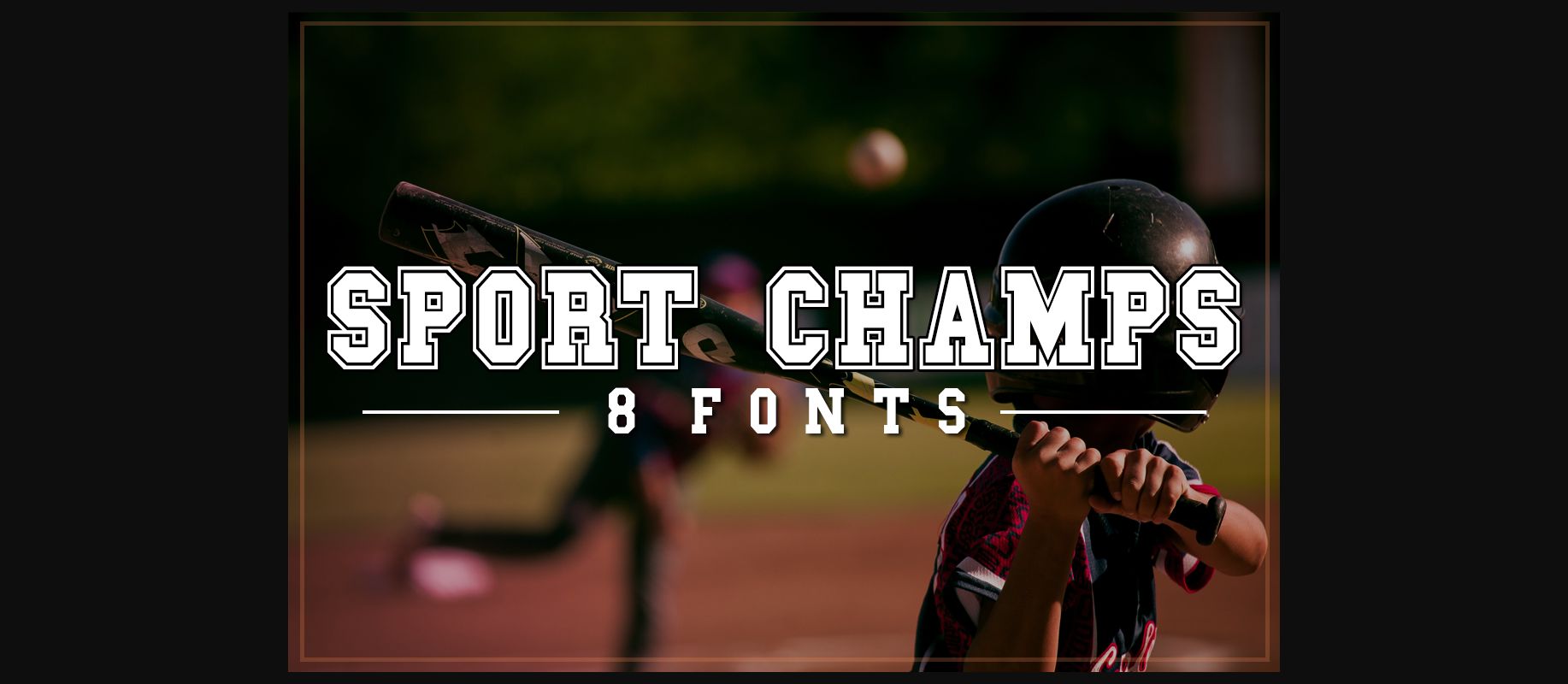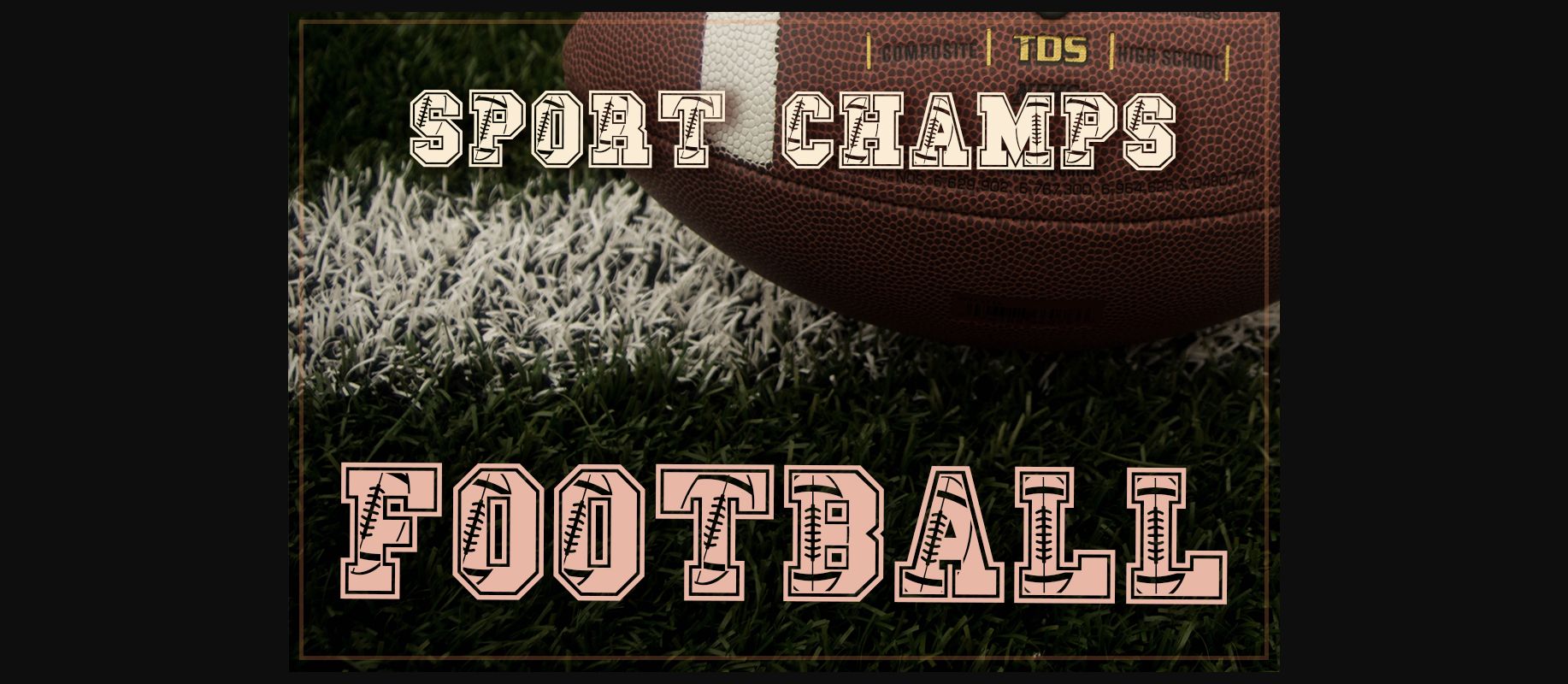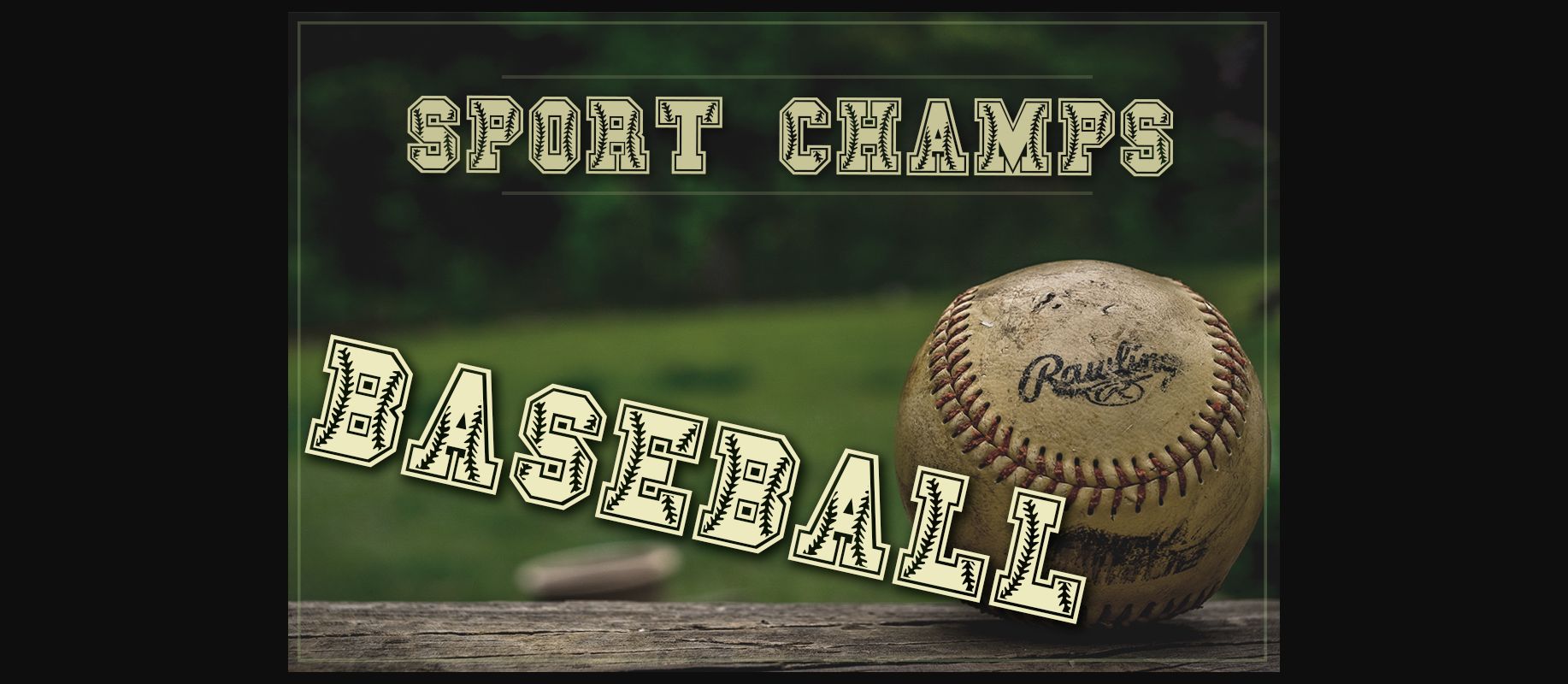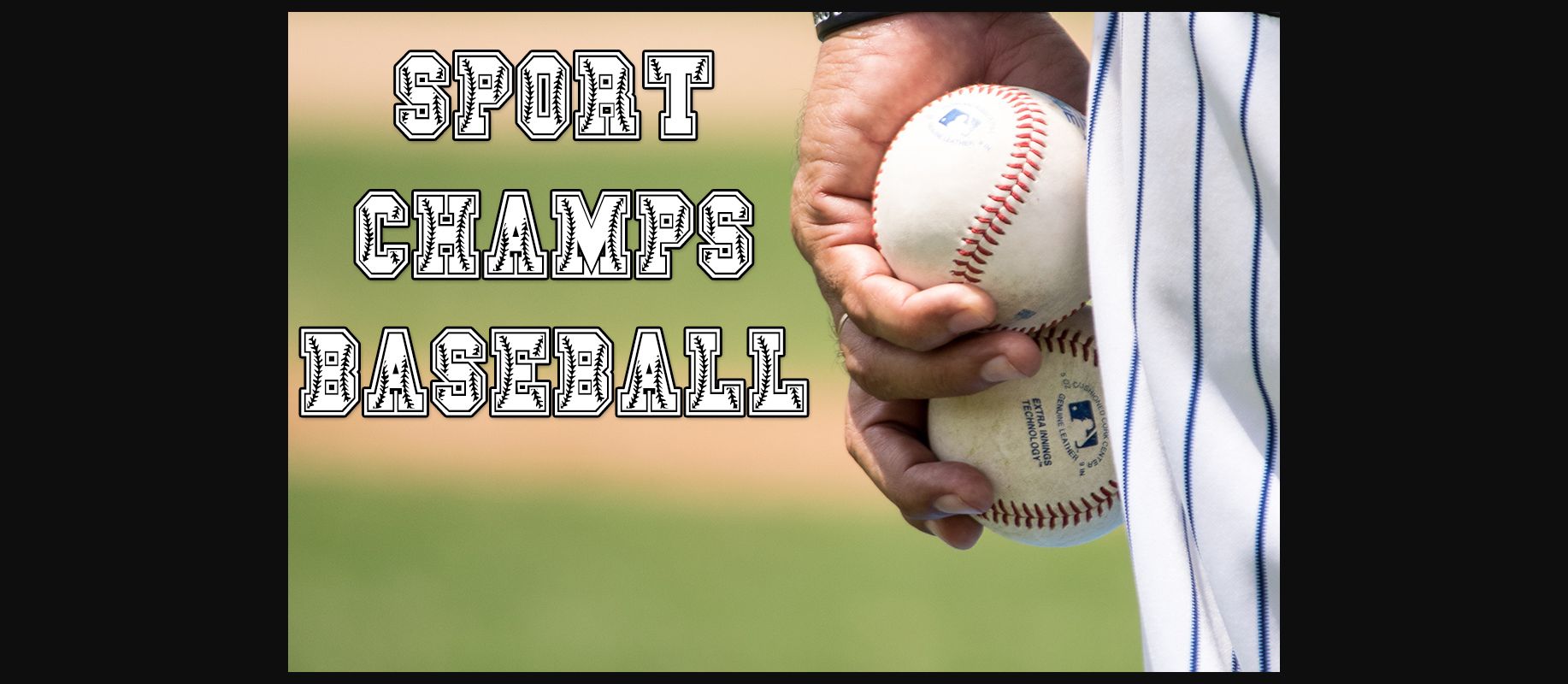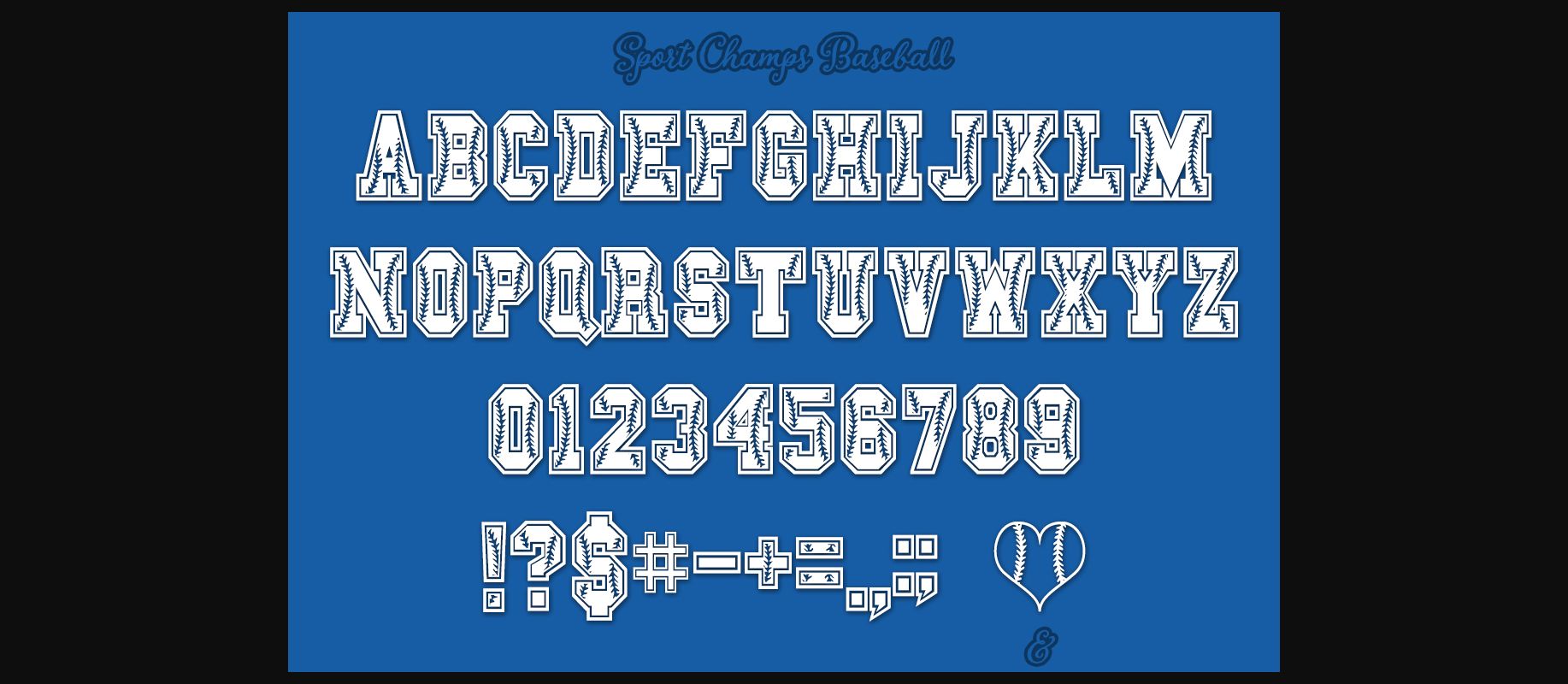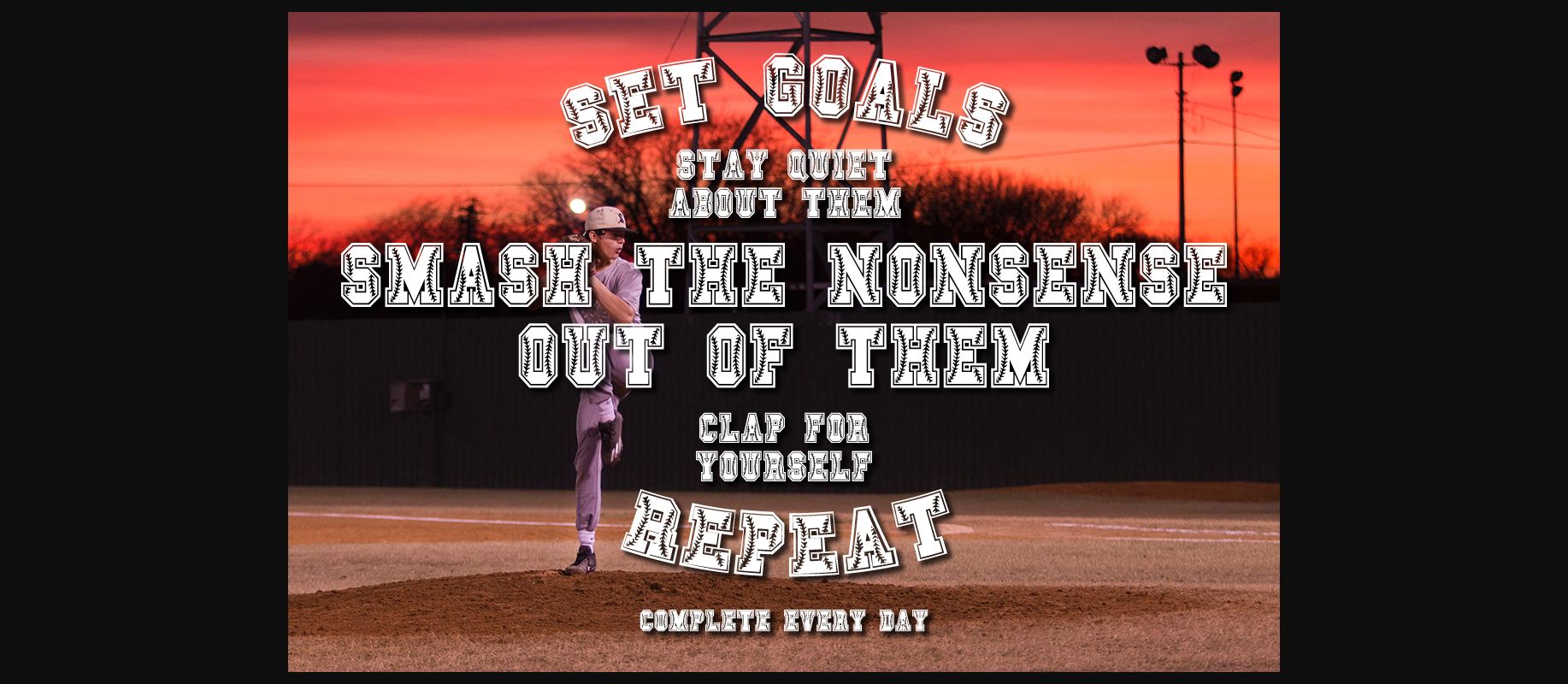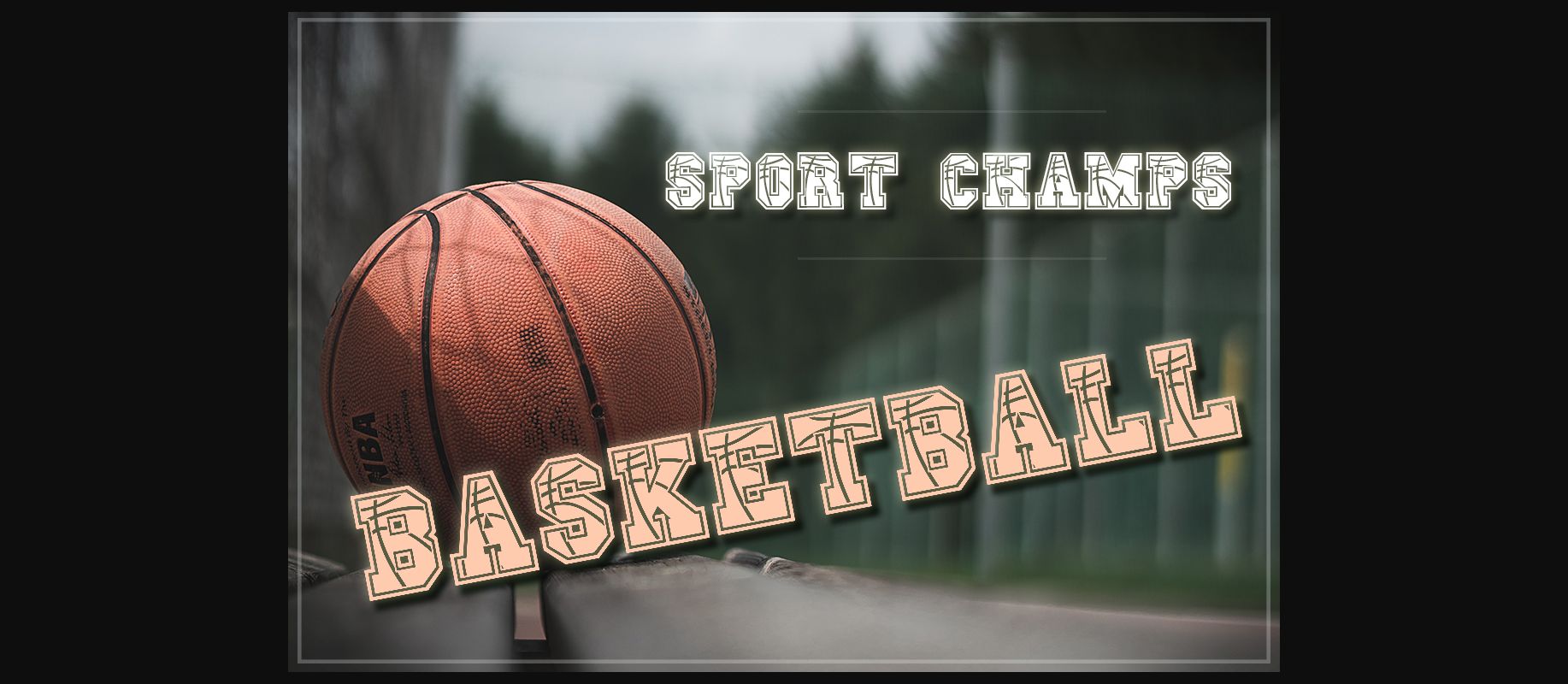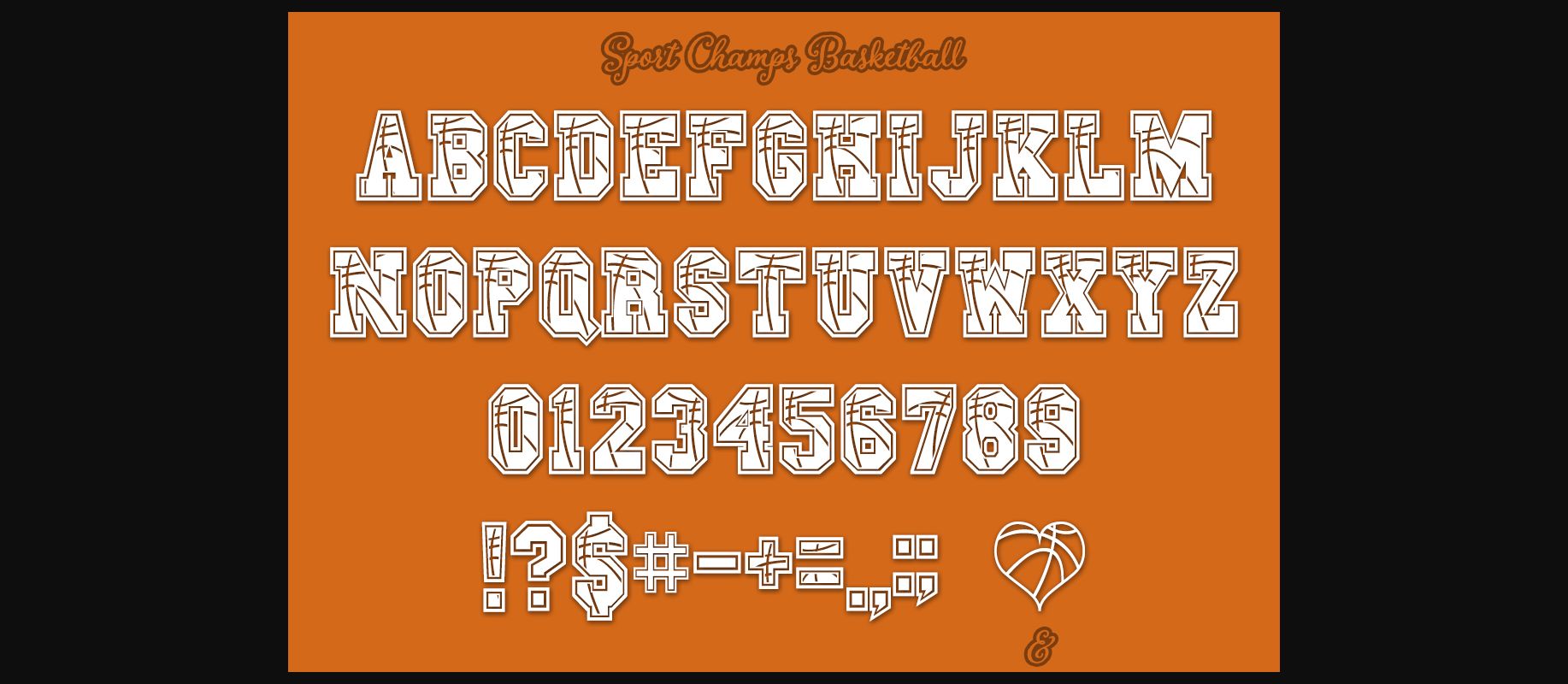
Sports Champs Font
About Sports Champs Font
Sports Champ is a decorative font that includes 8 variations of the font where 6 of them are sports-related: baseball, football, soccer, basketball, golf, and volleyball! This font pack is incredibly playful and unique!